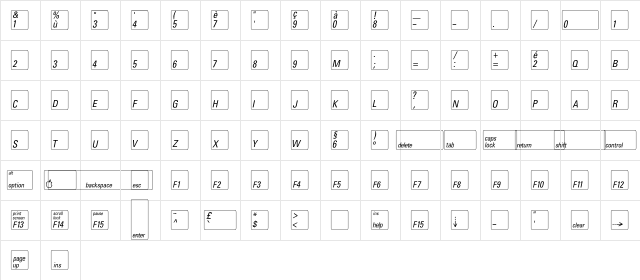
KeyFontFrench-Light Regular
Design Context for KeyFontFrench-Light Typeface
KeyFontFrench-Light offers clean, dependable letterforms without strong stylistic allegiance, making it a practical choice for designers who need flexibility. Its slender proportions lend an understated elegance to any composition.